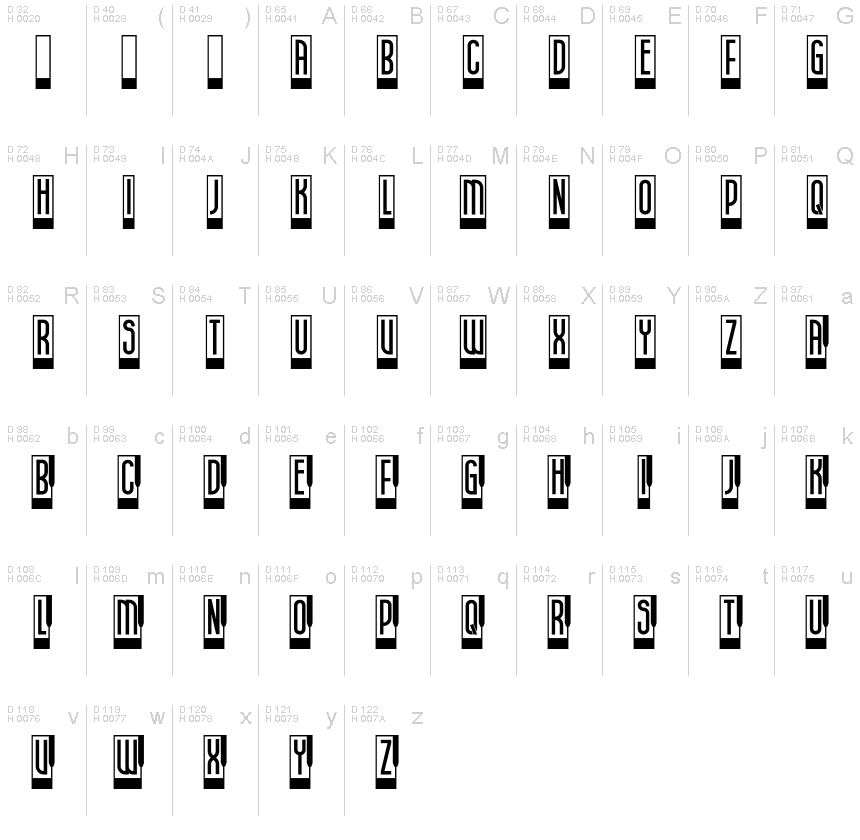
Piano Letters Regular
Piano Letters font is a masterful creation by designer Vladimir Nikolic, striking with its decorative charm and condensed style. This display font captivates with its unique aesthetic, reminiscent of piano keys aligned in harmonious elegance. Each letter echoes a musical rhythm, perfect for making a bold statement.
Ideal for creative projects, Piano Letters brings flair to posters, album covers, and branding designs. Its distinctive features make it an excellent choice for captivating headlines and expressive typography.